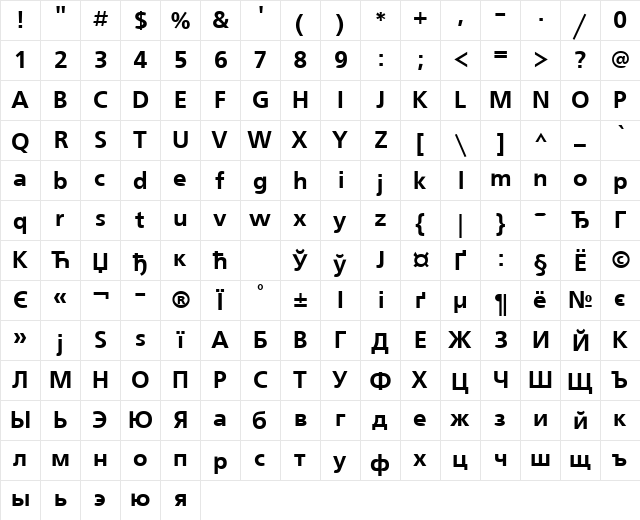
font180 Bold
Design Context for font180 Typeface
font180 is a composed and adaptable typeface that performs quietly and consistently across a wide range of design contexts. Its bold stroke weight gives it real presence on the page.